Enjoy our hand-picked selection of the top 10 free fonts graphic designers can download to create amazing typographic designs in 2022.
As we did in the past, we once again have examined countless free fonts from different platforms to show you our hand-picked selection of the 10 very best fonts graphic designers can download for free in 2022. This particular collection includes a variety of styles. As mentioned before, all of the selected fonts are available for free download, but please pay attention to the respective licensing options in terms of private and commercial usage.
10. Projekt Blackbird – Free Sans Serif Font
Designed by Leonit Gashi, Projekt Blackbird is a free sans serif font that works exceptionally well in headlining, web design projects, posters, or body texts. It is free for both personal and commercial use.
9. Radicals – Bold Script Font
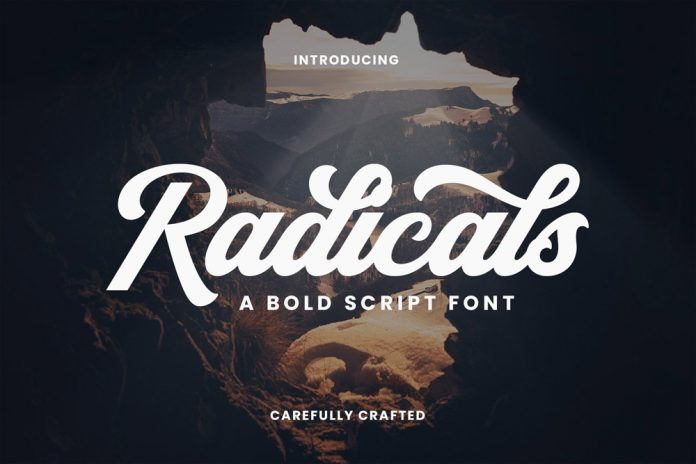
Radicals is a bold script font that features clean lines, and smooth connections as well as fun tails and glyphs. It’s quite obvious that this typeface draws inspiration from good old vintage lettering. The Radicals script font is a great choice for logos, branding, packaging, headlines, retro styles, and more.
8. Roboto – Free Google Font
Roboto was designed by Christian Robertson based on two characteristics. On the one hand, Roboto is characterized by geometrical shapes. On the other hand, it offers a friendly and open look. Equipped with a large number of styles plus matching Italics, Roboto is available for free download at Google Fonts. You can use this font family for both print and screen design.
7. Nagoda – Free Modern Display Font
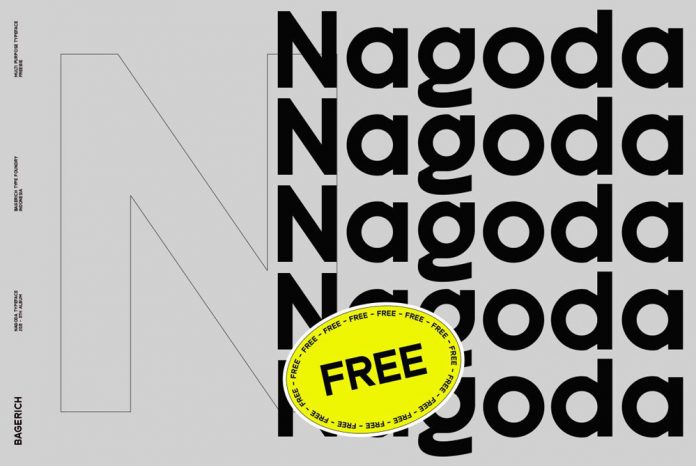
Nagoda is a free sans serif font designed and published by the Bagerich Type Foundry. It features upper and lowercase characters as well as numbers and punctuation. This modern typeface is well suited for your logos, headlines, branding, packaging, etc.
6. Margaret Serif Font
Margaret Serif is a classic display font created by Kacper Janusiak and K94 Studio. This free serif font can be used in headlines and logotypes. Just click on the following link to get further information about all features.
5. Blackshore – Hand-Painted Font.
Blackshore is a very bold, hand-painted sans serif typeface. This robust font features natural brushstrokes in order to give your typographic work the visual experience of truly handmade lettering. This versatile font is suitable for vintage badges, posters, website headers, and branding. Blackshore’s free version includes a sample of characters from the SVG version. The full version comes with both SVG & OTF formats and supports multiple languages. Please note, SVG font formats are compatible with tools such as Photoshop CC 2017 or Illustrator CC 2018 and higher. You can purchase the full version of Blackshore SVG + OTF for commercial use here. The free version is available for personal use. Just click on the following link.
4. Juliette – Free Handwritten Signature Font
Juliette is a beautiful handwritten signature font. It is stylish, yet natural and simple. Juliette can be used for logos, branding, social media, feminine designs, and more. Its natural refined style is the right choice for elegant designs.
3. Restora – Old-Style Roman Serif Font
Restora was already quite popular in 2021. This old-style roman serif font family is currently available as both a slimmed-down free version and a full-fledged paid version. The complete family consists of eight weights ranging from thin to black plus matching italics for each weight. The free version includes Restora Extra Light and Restora Thin Italic. You can purchase the full version of Restora with all 16 fonts here. If you are fine with the two styles of the free version, then follow the link below.
2. Vollkorn – Free Google Font
Vollkorn is a serif font family based on a classic design. Its regular style was Friedrich Althausen’s first type designing attempt, which has been published in 2005 under a Creative-Commons-License. The typeface quickly gained great popularity and after only two years, it had been downloaded thousands of times. Today, Vollkorn is available as a free Google Font in 4 weights (Regular, Semi-Bold, Bold, and Black) plus matching Italics for each weight. With its dark and meaty serifs, it can be used for both print and web design projects.
1. Big John Pro – The Best Free Fonts
Big John Pro could not be displaced from the first place. When we talk about free fonts, Big John PRO is one of our all-time favorites. Designed by Ion Lucin, it’s the evolution of the Big John and Slim Joe font, which can be found here. Big John Pro now consists of a bold, light, and regular version. It is available for free for personal and commercial use. Just click on the link in the bio of Ion Lucin’s Instagram account.
We hope you enjoyed our selection of the top ten free fonts for 2022 and hopefully, you found the right typeface for your next design project. For those of you who want to discover more of our recommended typefaces, feel free to browse through our recommended Fonts category. Furthermore, you can find amazing design assets in our Templates category. Update: Check out our selection of the best free fonts in 2023.